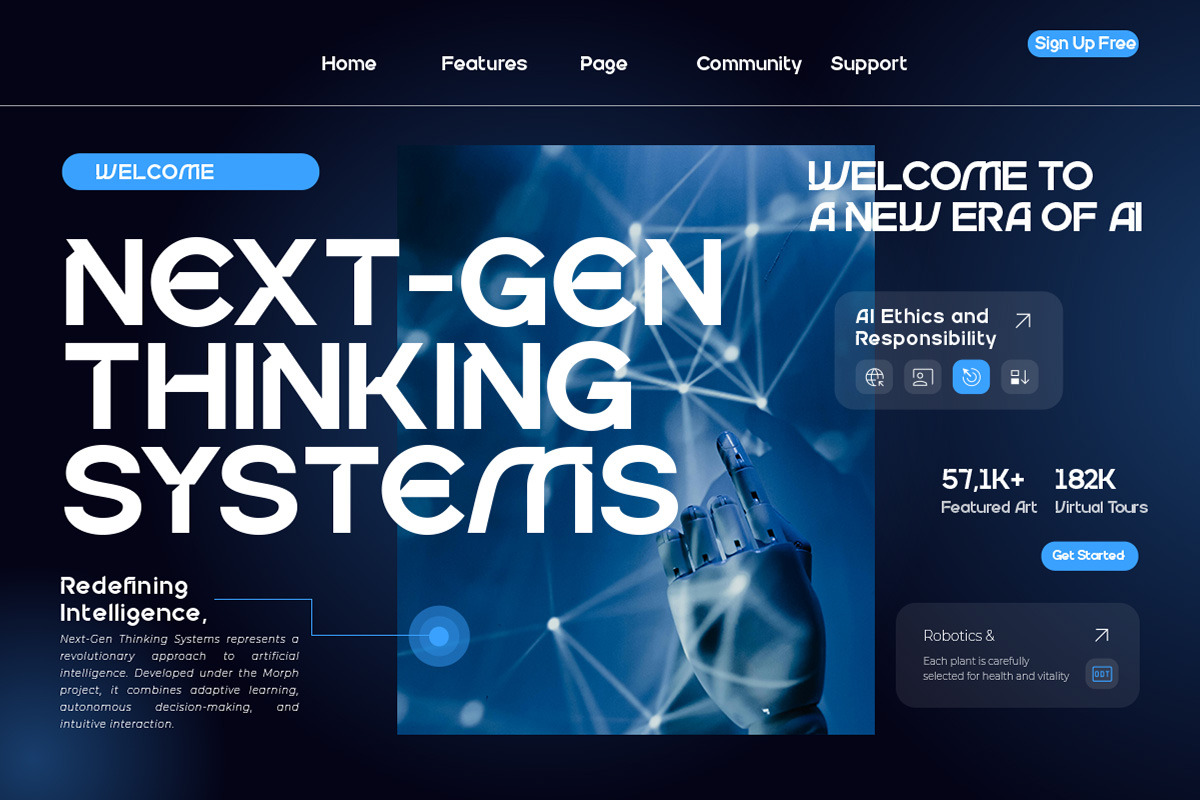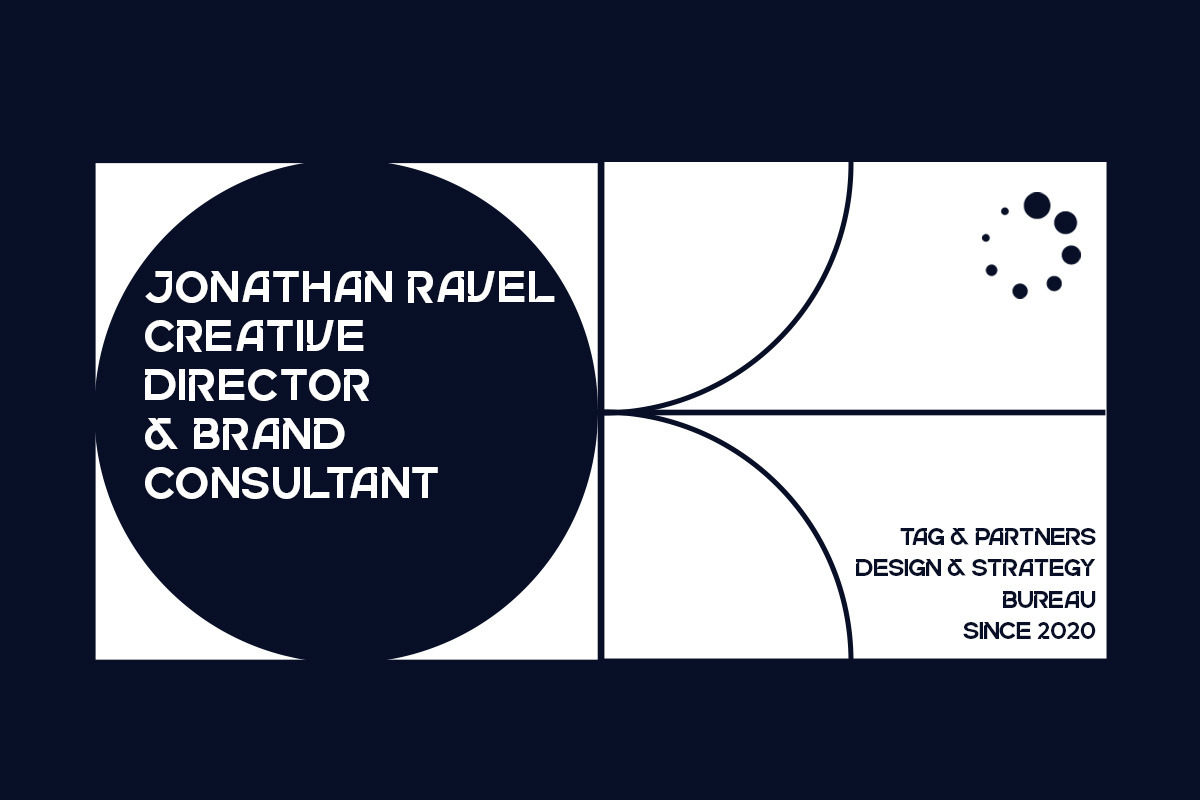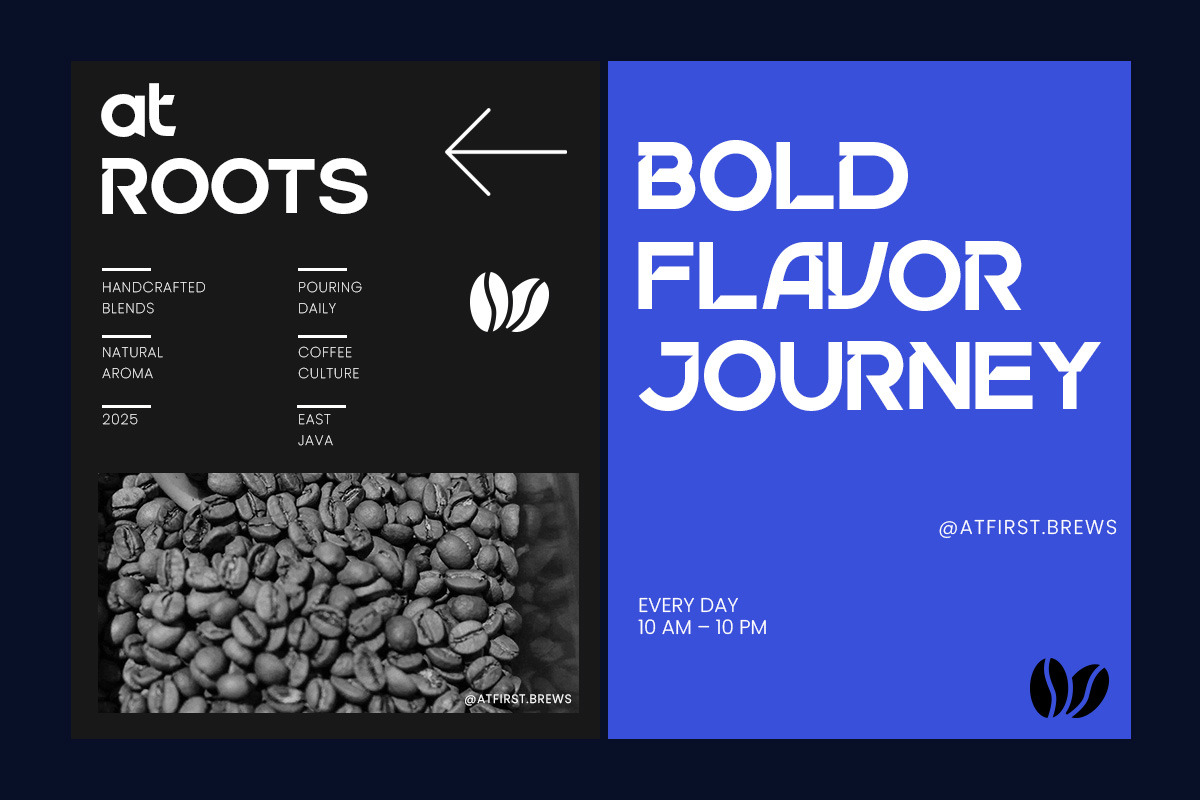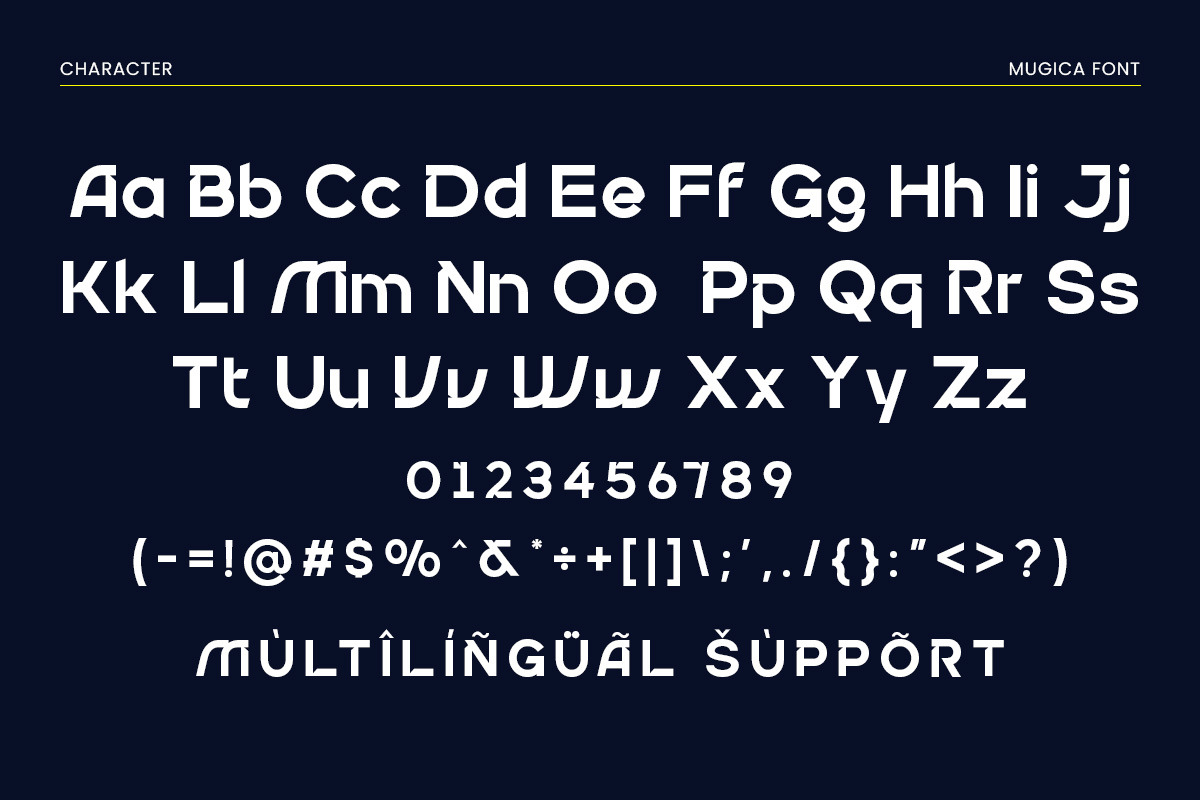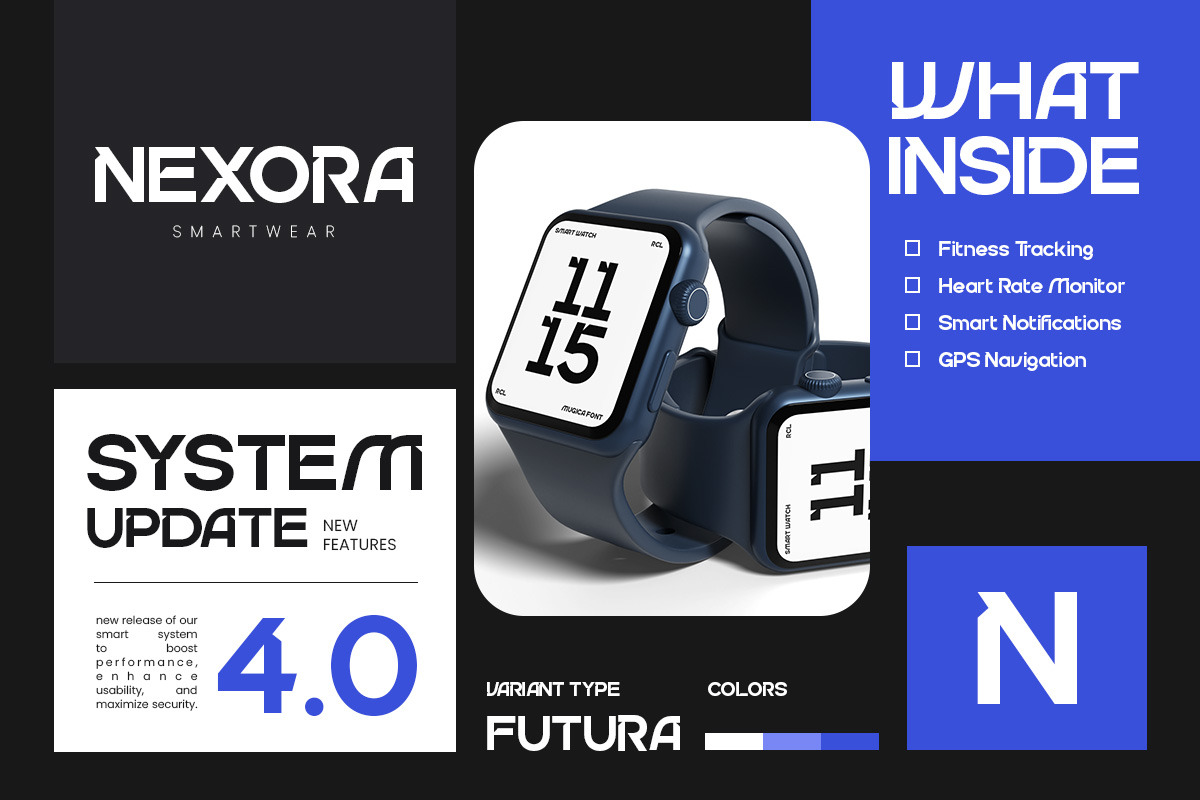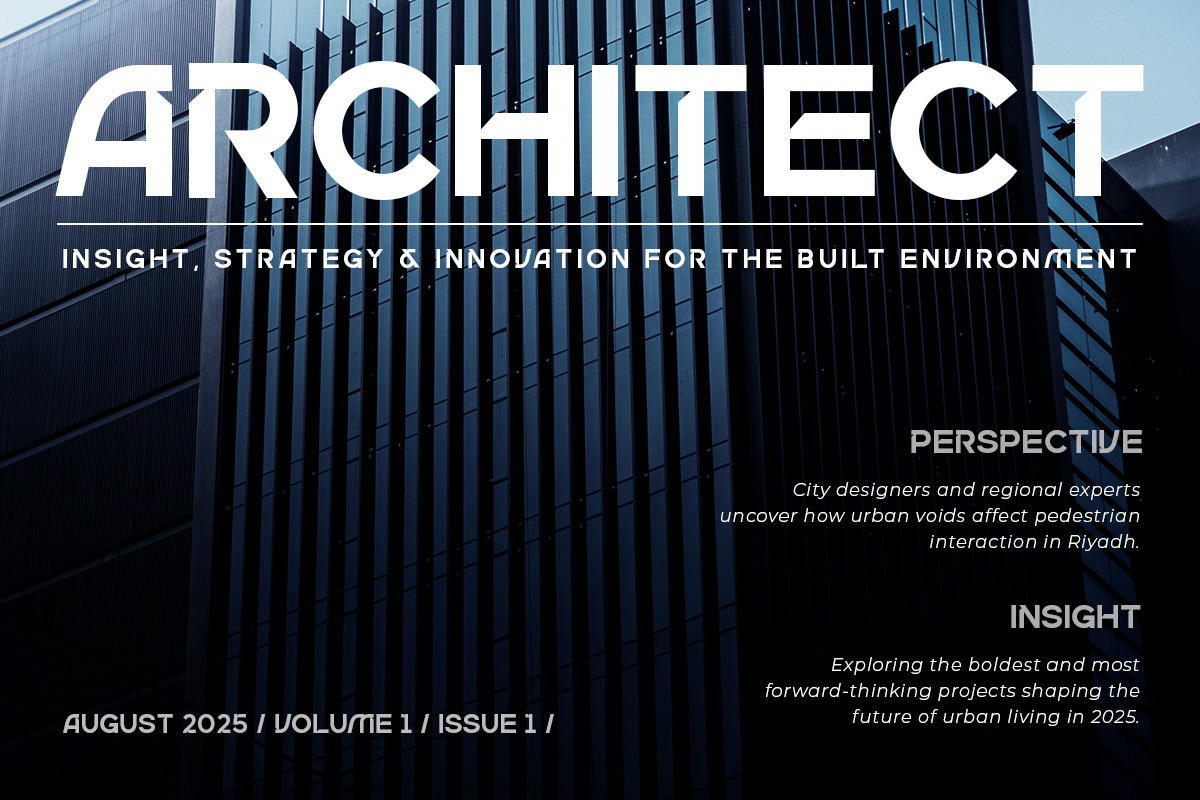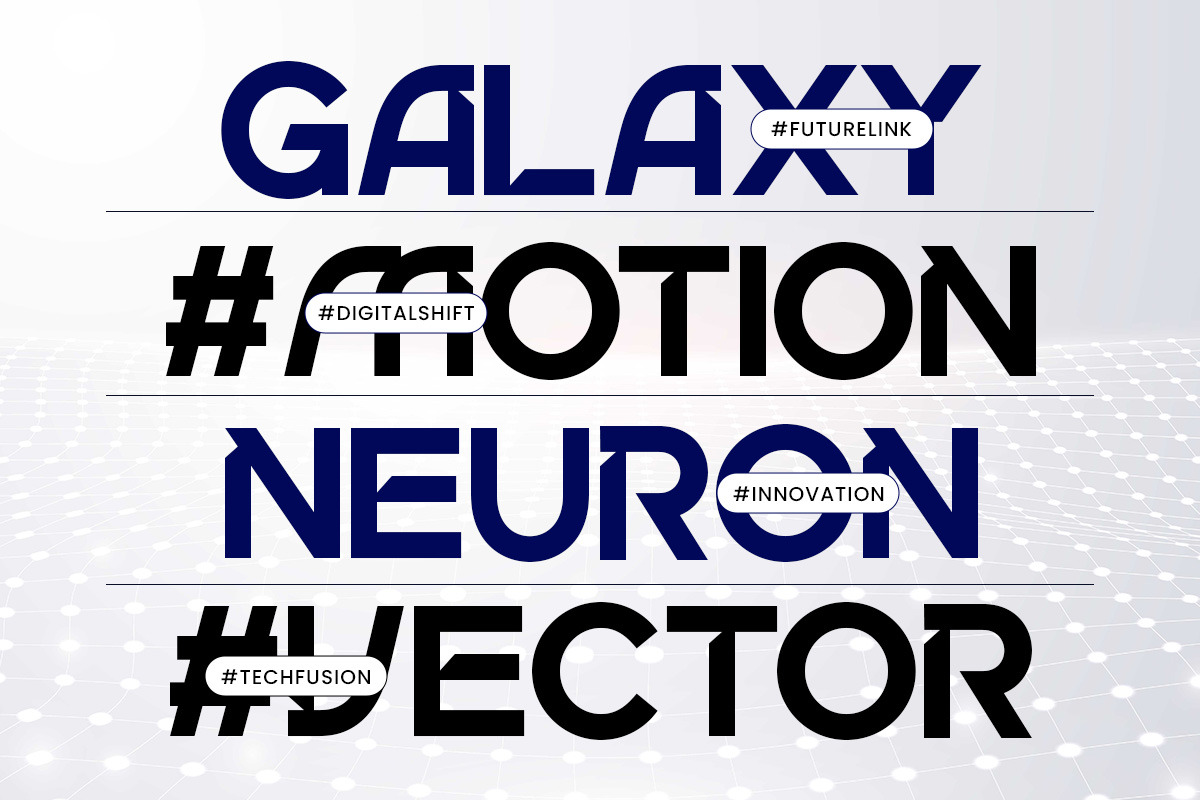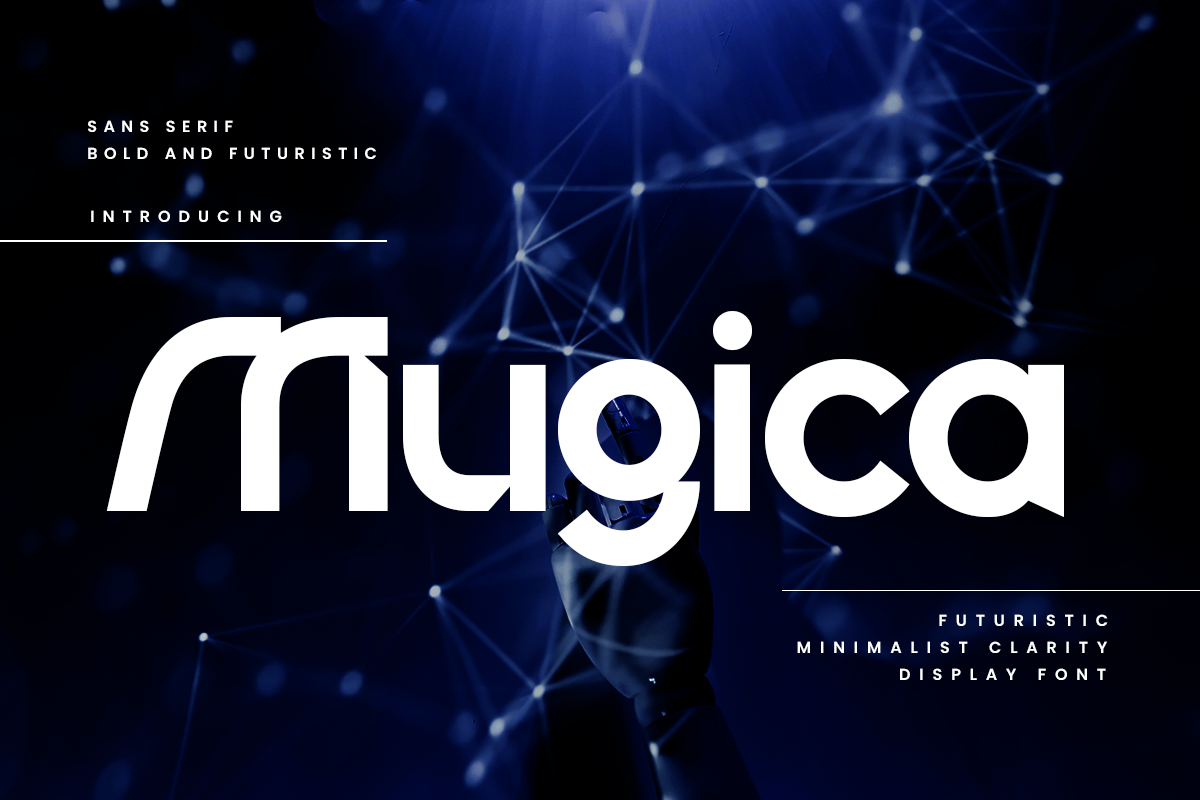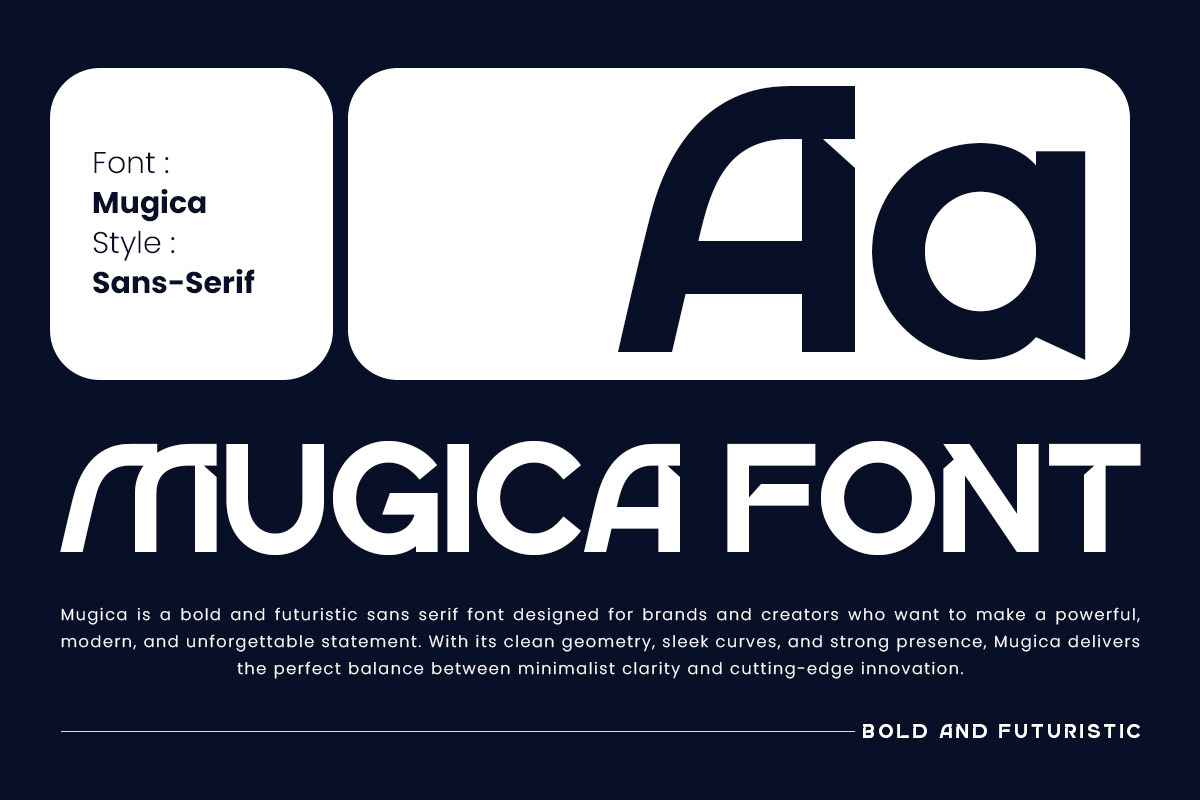
Mugica – Futuristic Sans Serif Font
Mugica a bold and futuristic sans serif font designed to bring clarity and innovation into your designs. With its geometric balance and sleek personality, Mugica captures the essence of modern typography while staying versatile and easy to use. This typeface is perfect for creatives who want to make a strong, forward-looking statement.
Every letter in Mugica is carefully crafted with smooth curves, precise spacing, and consistent kerning to ensure readability across digital and print media. Its minimalist yet striking design adapts seamlessly from large headlines to small captions, making it flexible for any creative need. With bold strokes and futuristic details, Mugica offers a unique edge that sets your designs apart.
Whether you’re working on logos, branding, posters, UI design, tech startups, editorial layouts, or digital advertising, Mugica provides the perfect balance of style and functionality. Add Mugica to your font collection today and transform your creative projects with bold futuristic clarity.